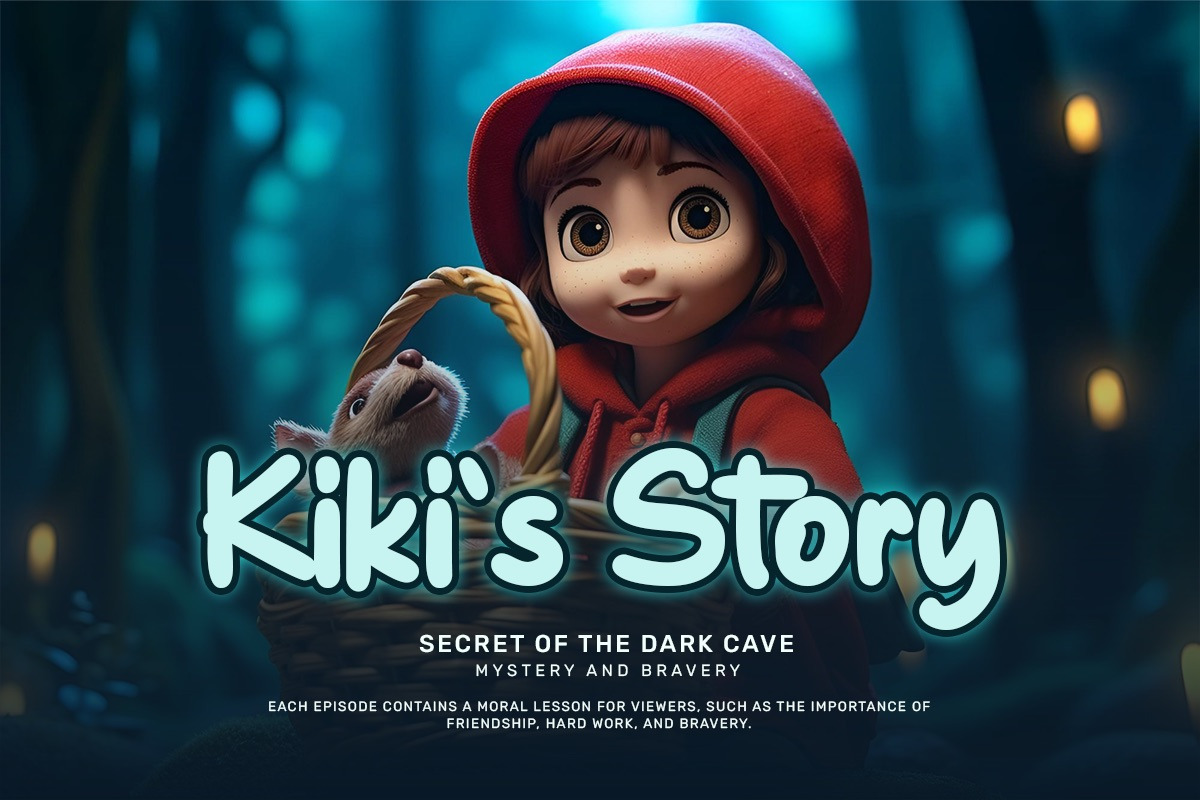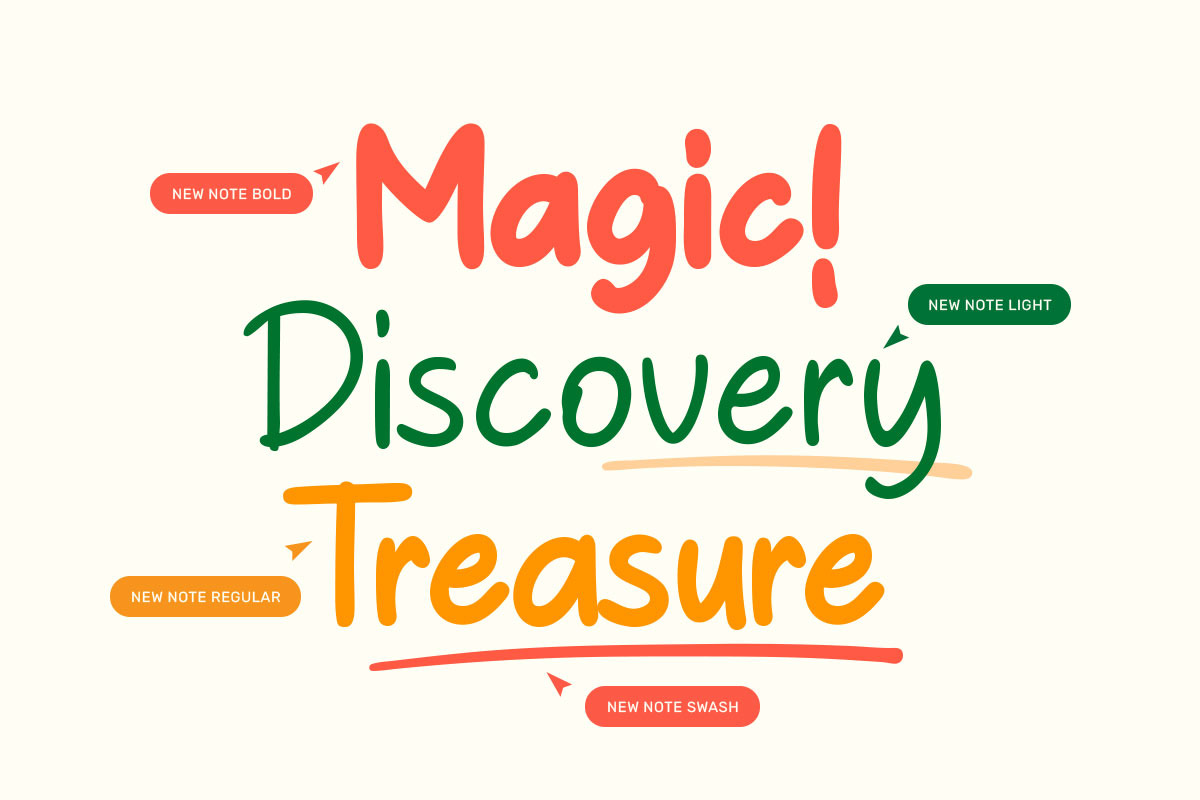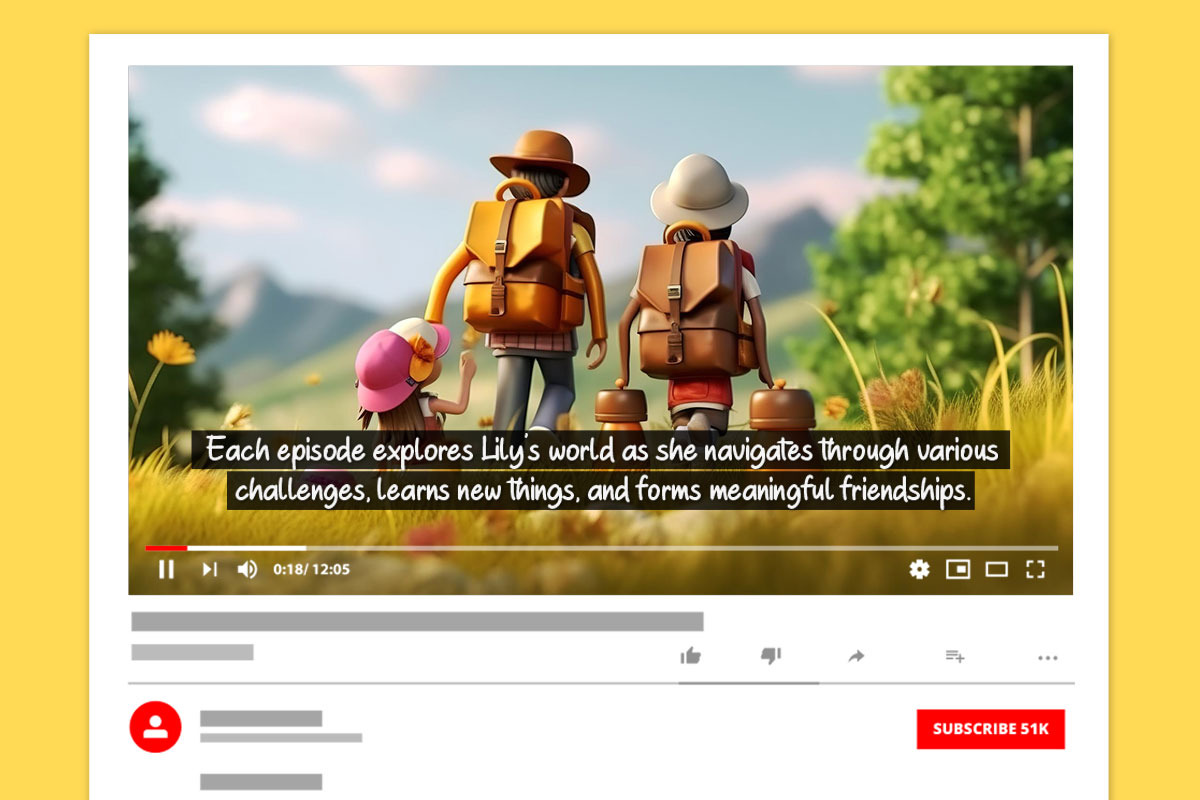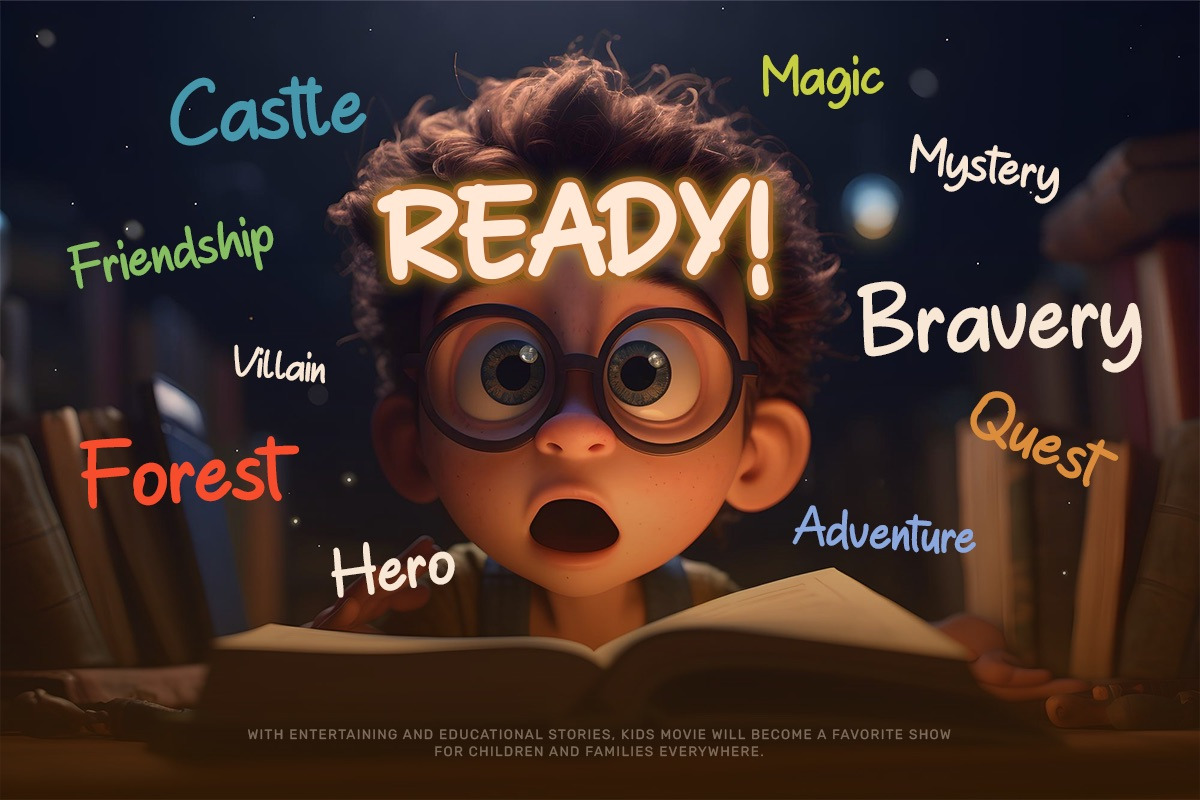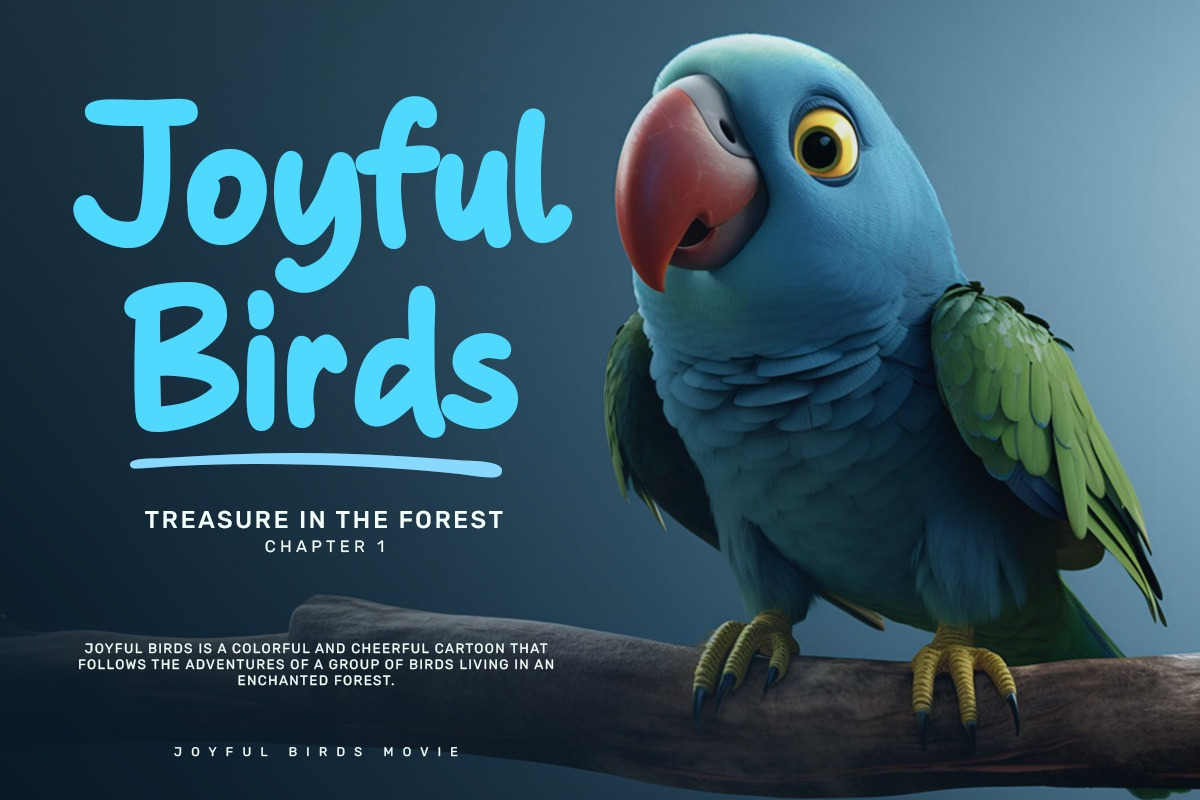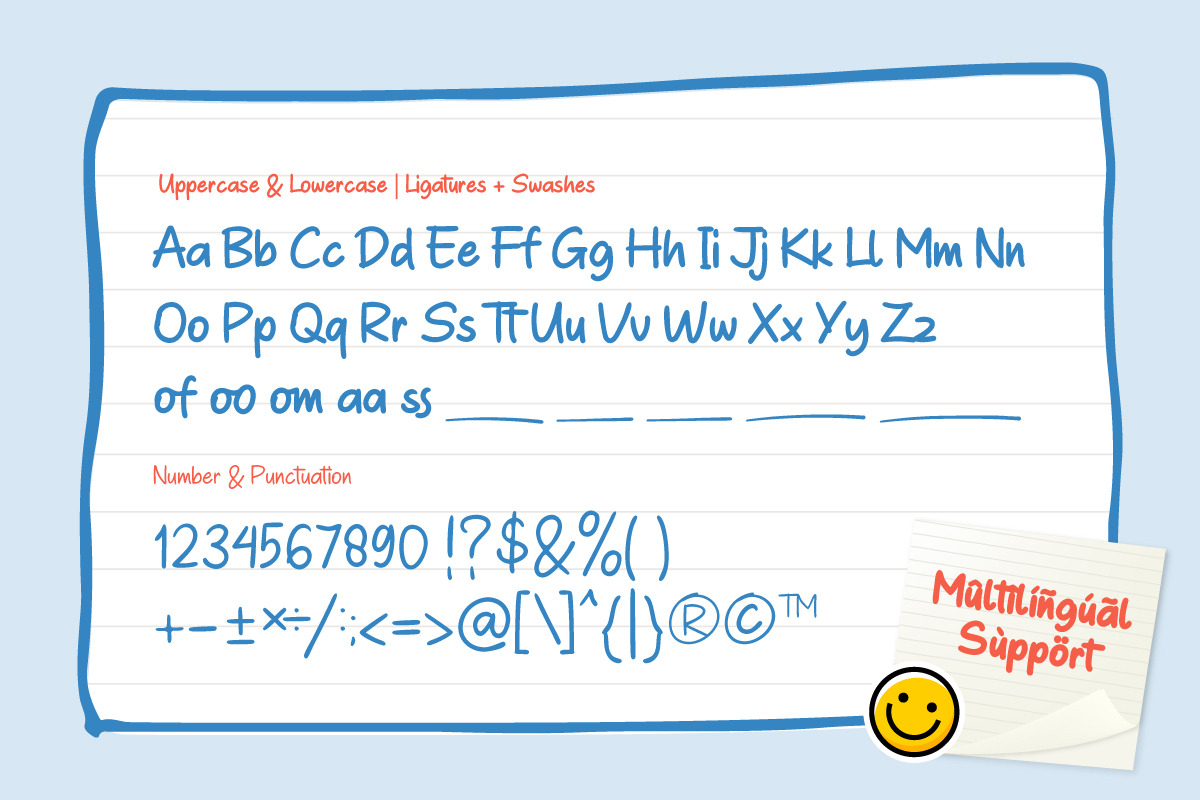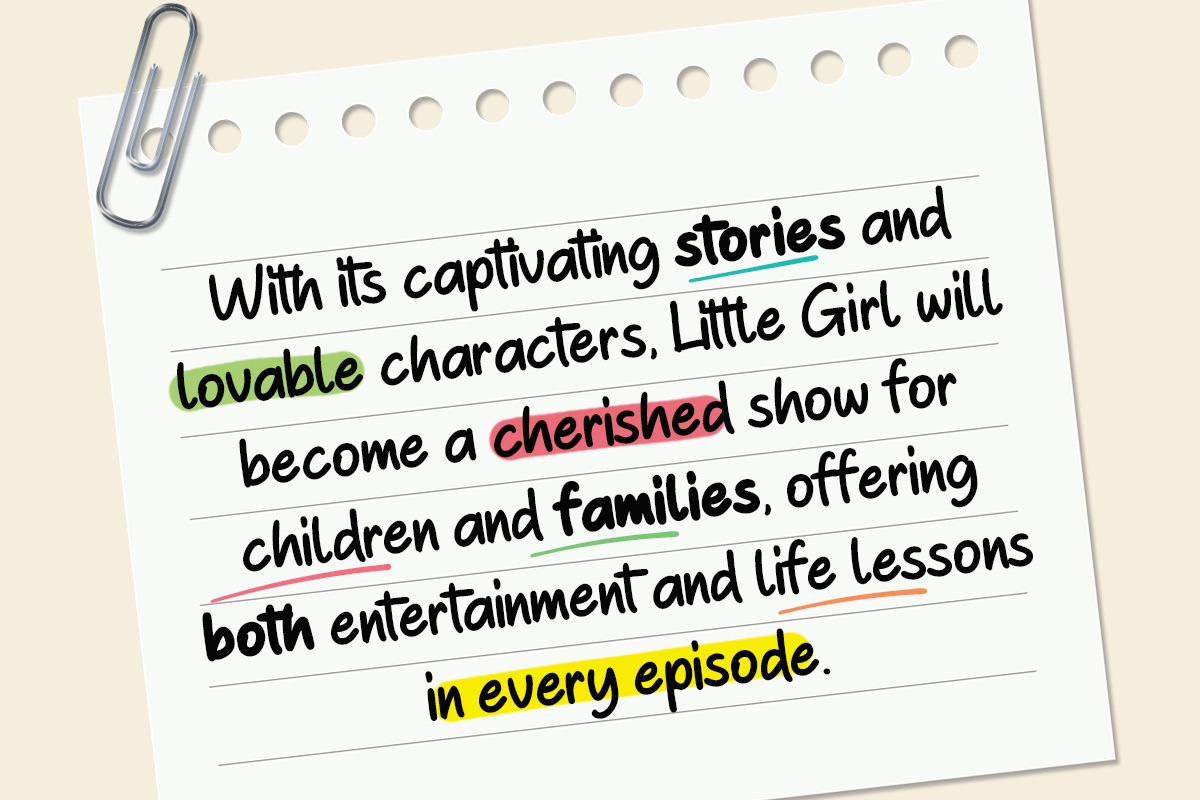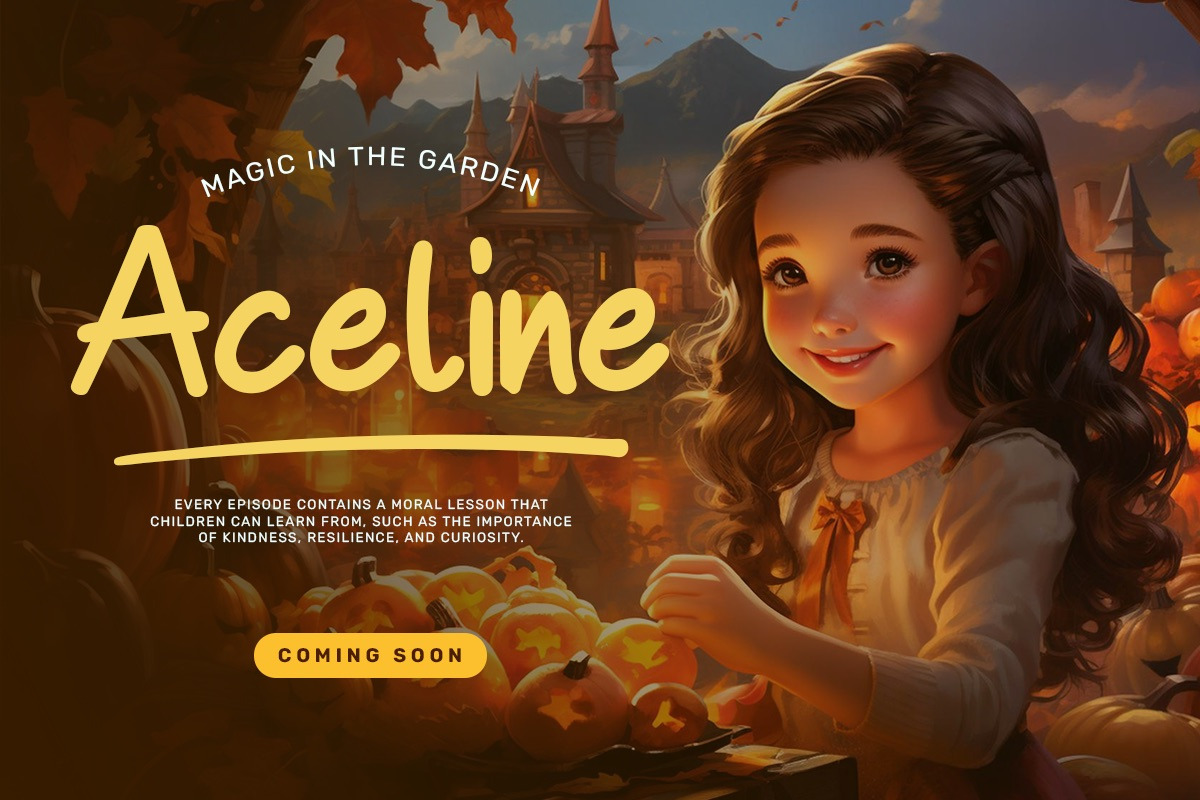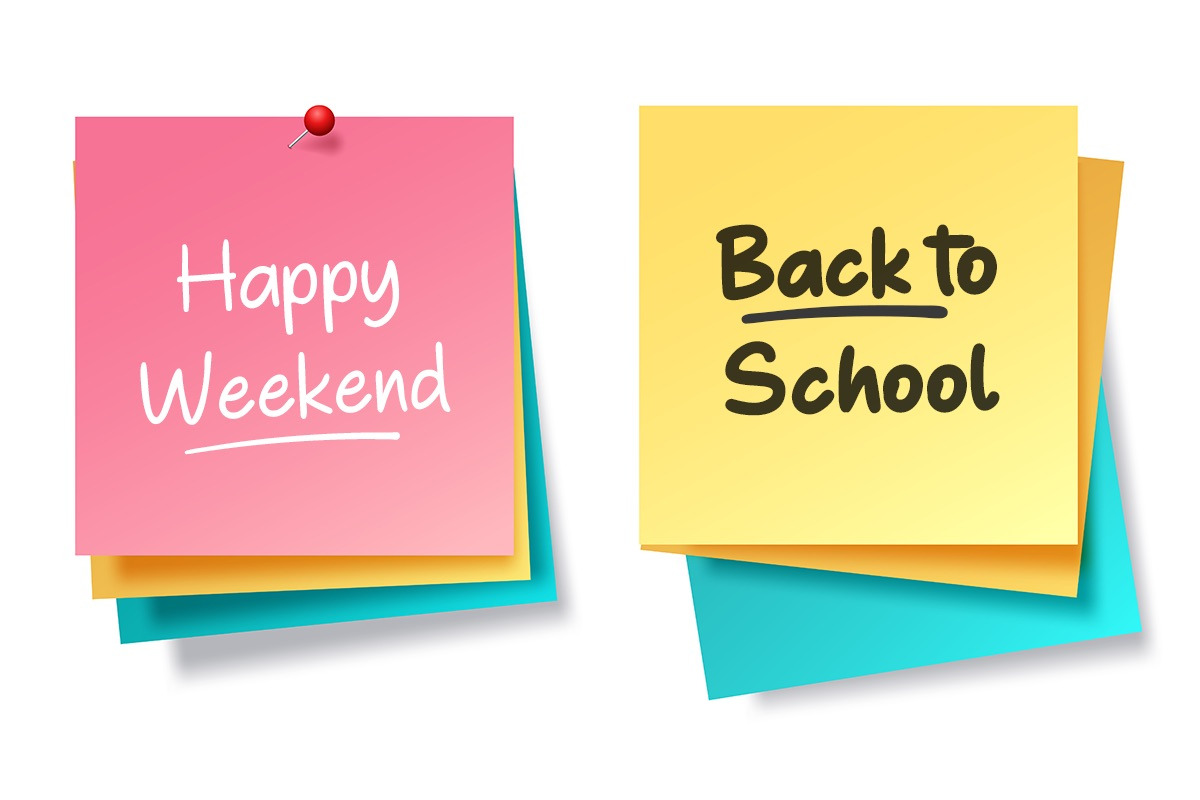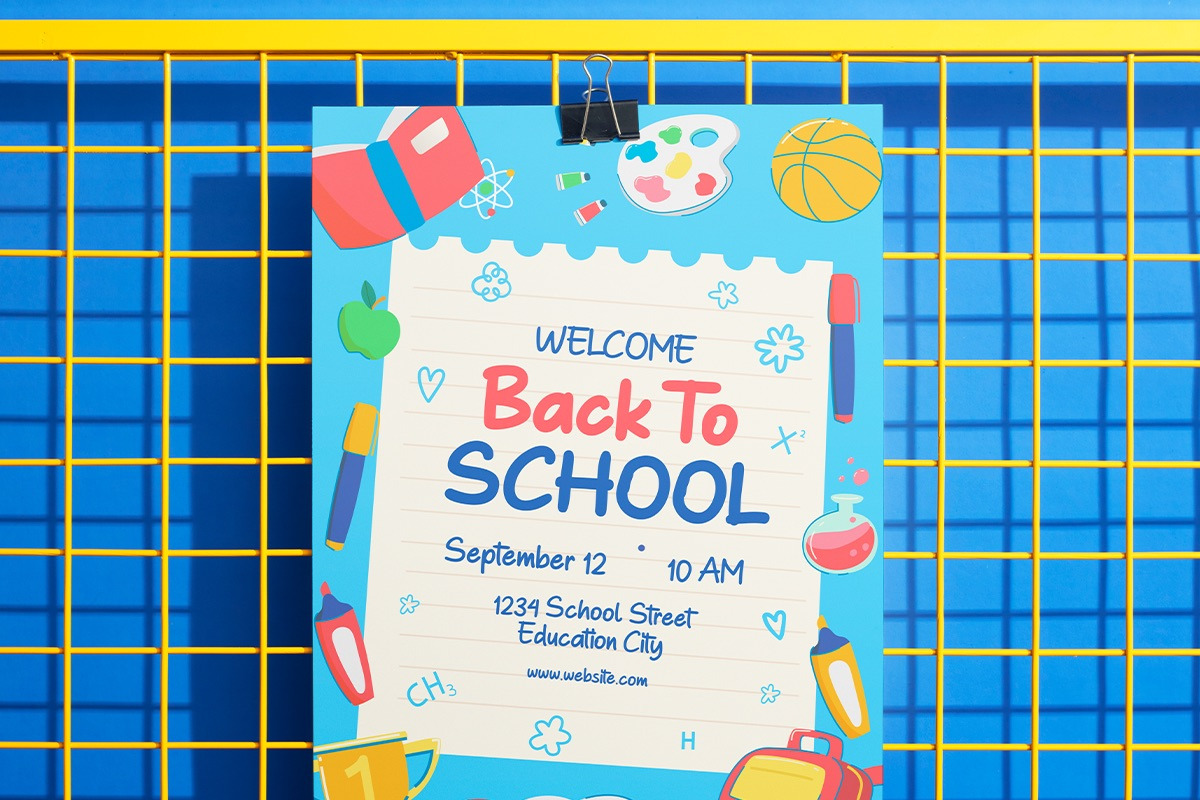
New Note - Handwritten Marker Note
Introducing New Note – A Handwritten Marker Font, skillfully designed to bring a touch of personalized charm to your projects. With its distinctive and adaptable style, New Note is perfect for adding a genuine hand-drawn feel to any design, making it a versatile asset for creatives.
At its heart, New Note captures the essence of handwritten notes, reflecting the unique imperfections and nuances that make each character special. Its smooth flow and natural elegance make it an excellent choice for a wide range of graphic projects, ensuring its applicability across various media and formats.
Highlighted Features:
- Complete set of uppercase and lowercase letters, numerals, and punctuation marks
- Unique alternates and ligatures for additional character variety
- Multilingual support includes characters like ä, ö, ü, Ä, Ö, Ü, ß, ¿, and ¡
New Note goes beyond mere functionality; it becomes a source of inspiration and creativity. Its flexibility allows it to fit effortlessly into digital notes, quote designs, book covers, logos, posters, menu layouts, apparel designs, scrapbooks, comic illustrations, magazine headers, and many other creative projects.
The font's versatility is complemented by its ability to breathe life into every project it touches. Whether it’s enhancing a playful children’s illustration or adding character to a sophisticated magazine title, Bebas Note brings an authentic charm that captivates viewers.
In summary, New Note Handwritten Marker Font is more than just a font; it’s a creative tool, a bridge between imagination and realization, designed to elevate your projects to new heights. Embrace its charm, utilize its versatility, and let it be the driving force behind your creative endeavors. Unlock the endless possibilities of Bebas Note, where every stroke tells a story and every design bears the mark of authenticity.